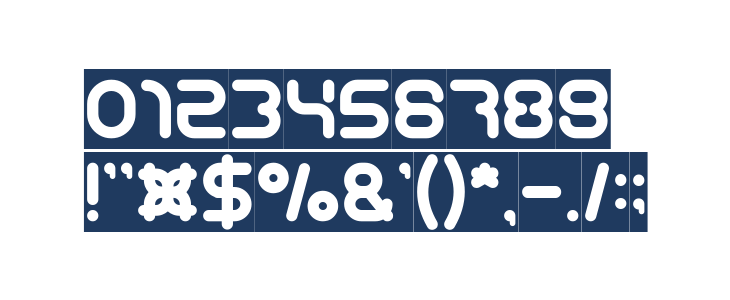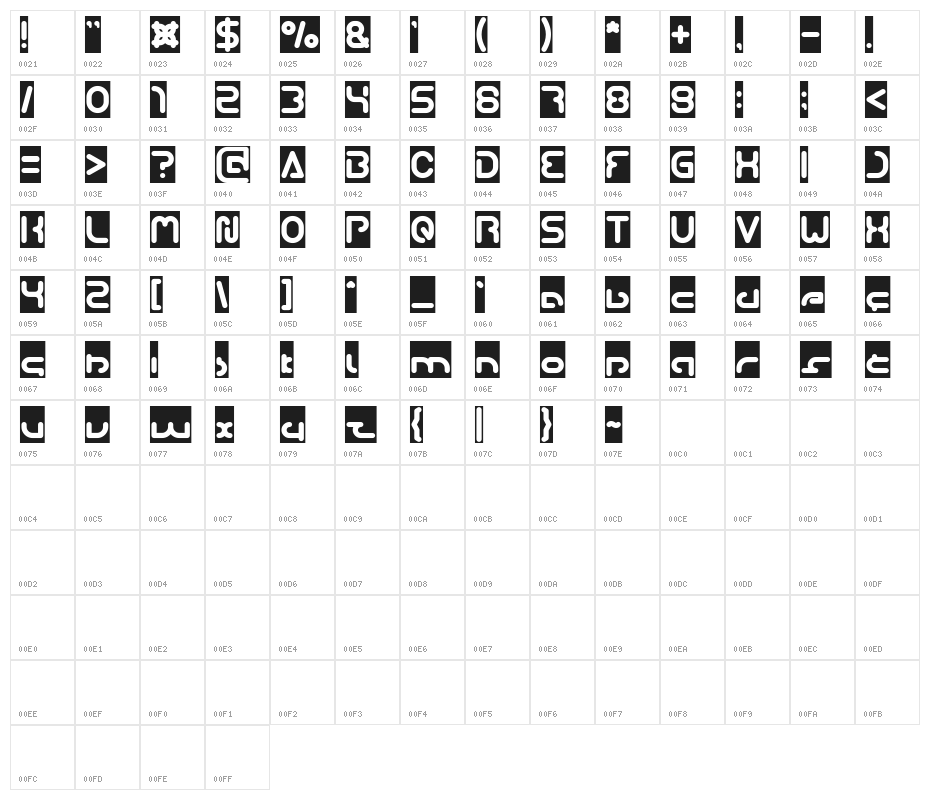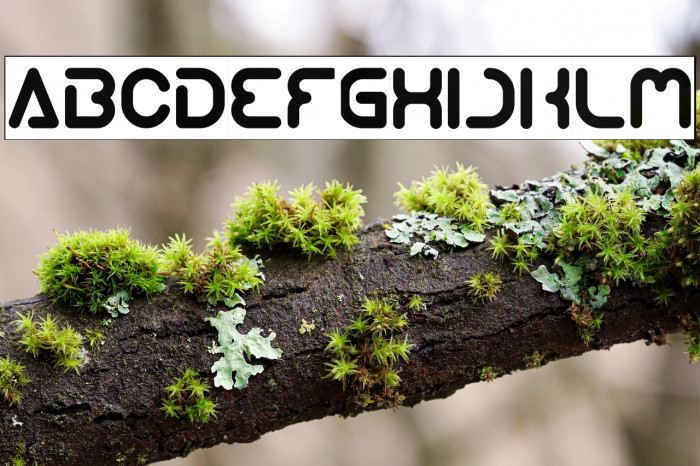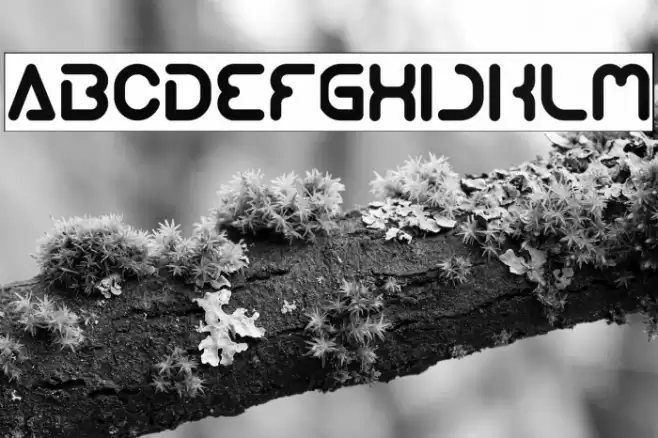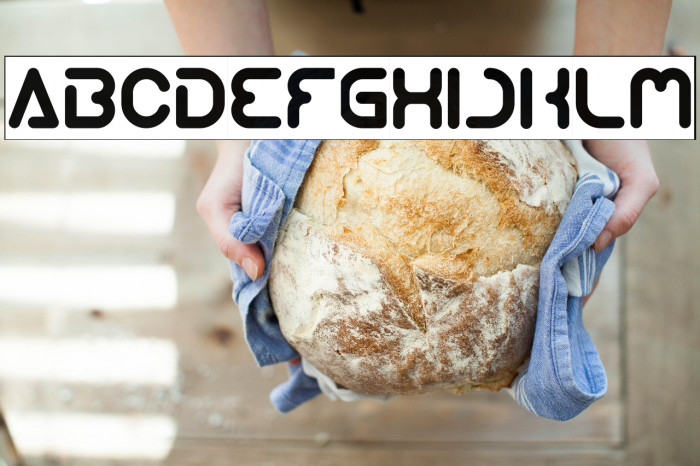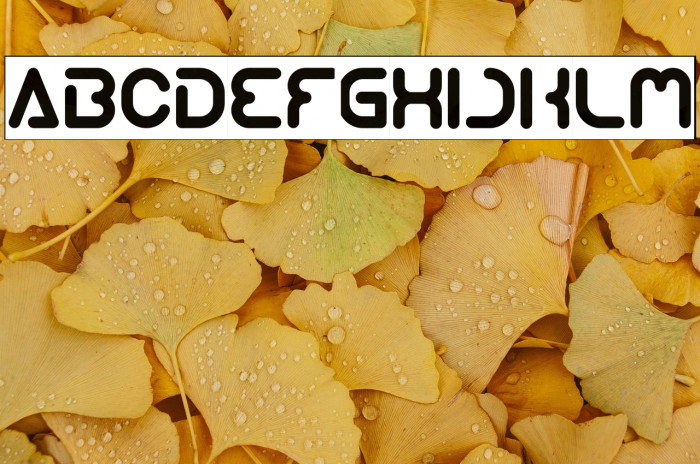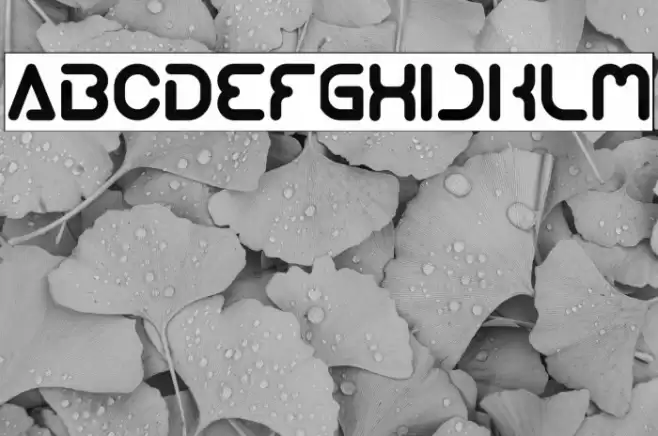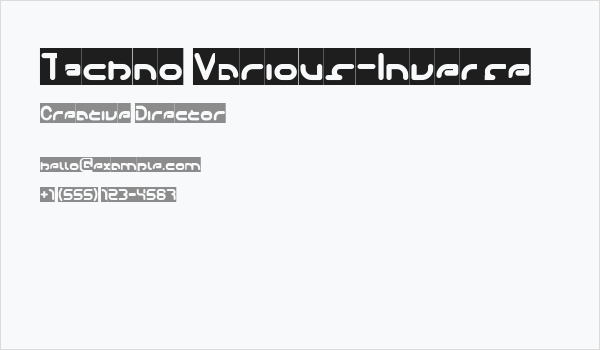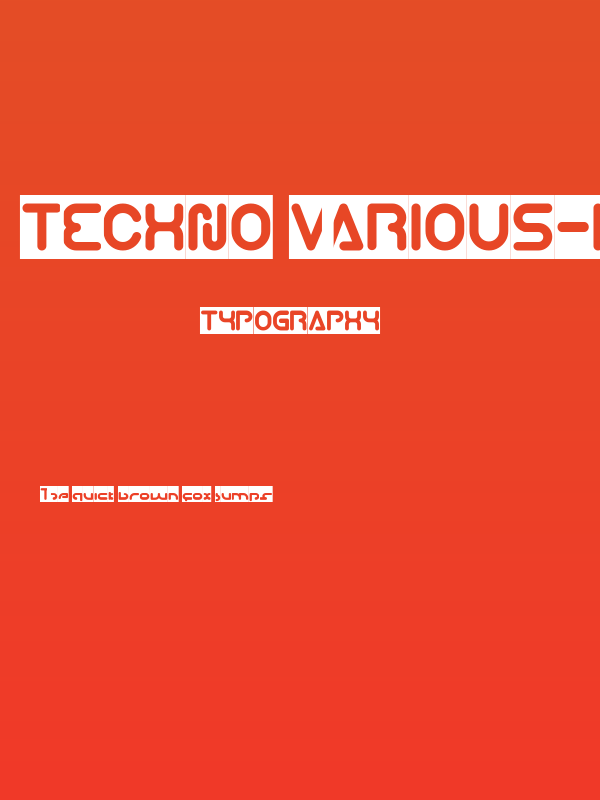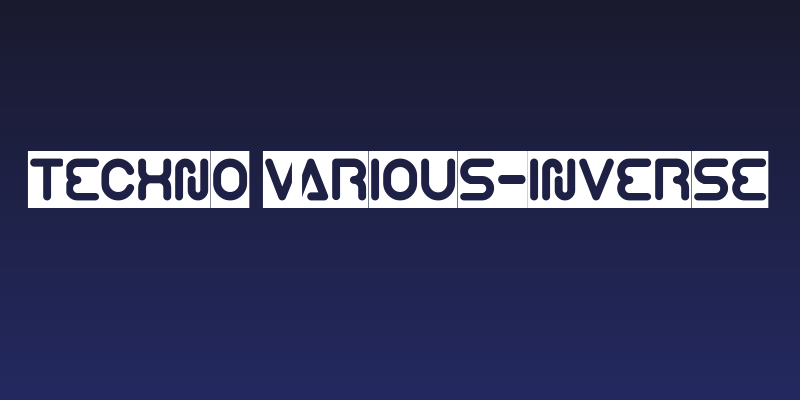
Techno Various-Inverse Font
Techno Various-Inverse Description
This font features a futuristic and bold design, characterized by its rounded and geometric shapes. The letters have a consistent thickness, creating a uniform and cohesive look. The style is distinctly modern, with a techno-inspired aesthetic that makes it stand out. The uppercase and lowercase letters maintain a similar structure, enhancing readability while retaining a unique flair. The numbers and special characters follow the same design principles, ensuring a harmonious appearance across all elements. This font's distinct style makes it suitable for projects that require a contemporary and eye-catching typeface.